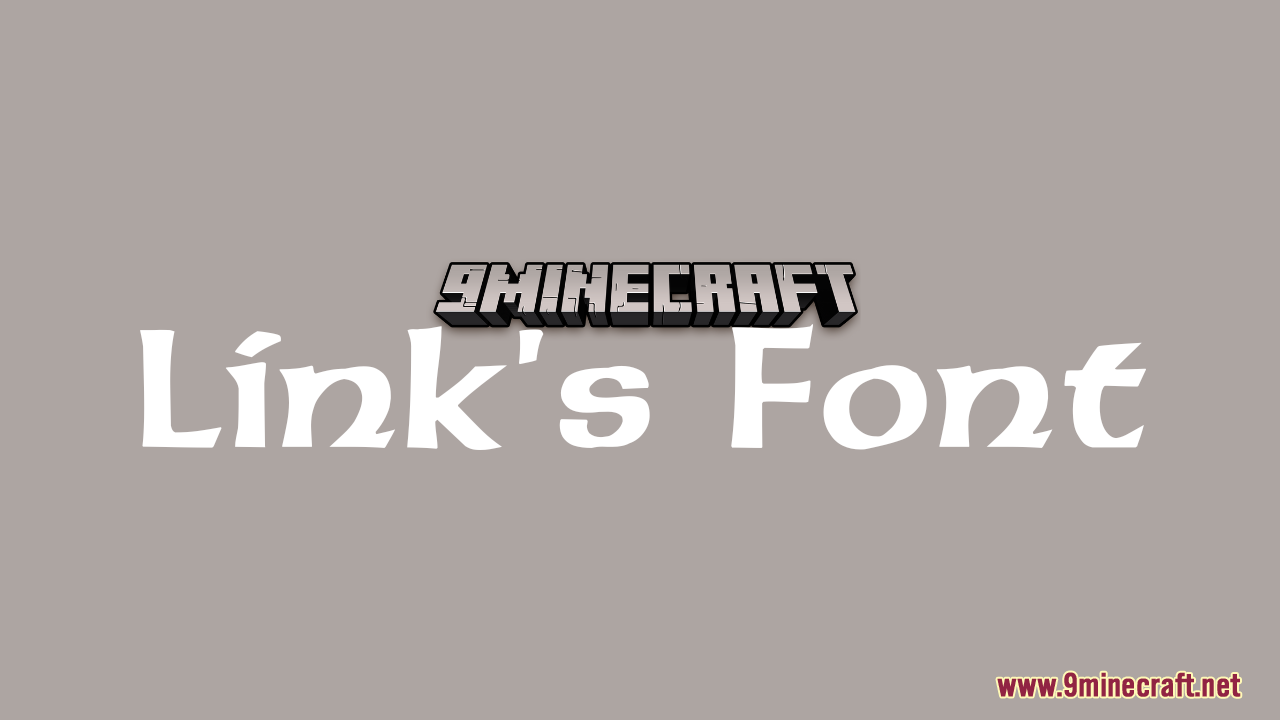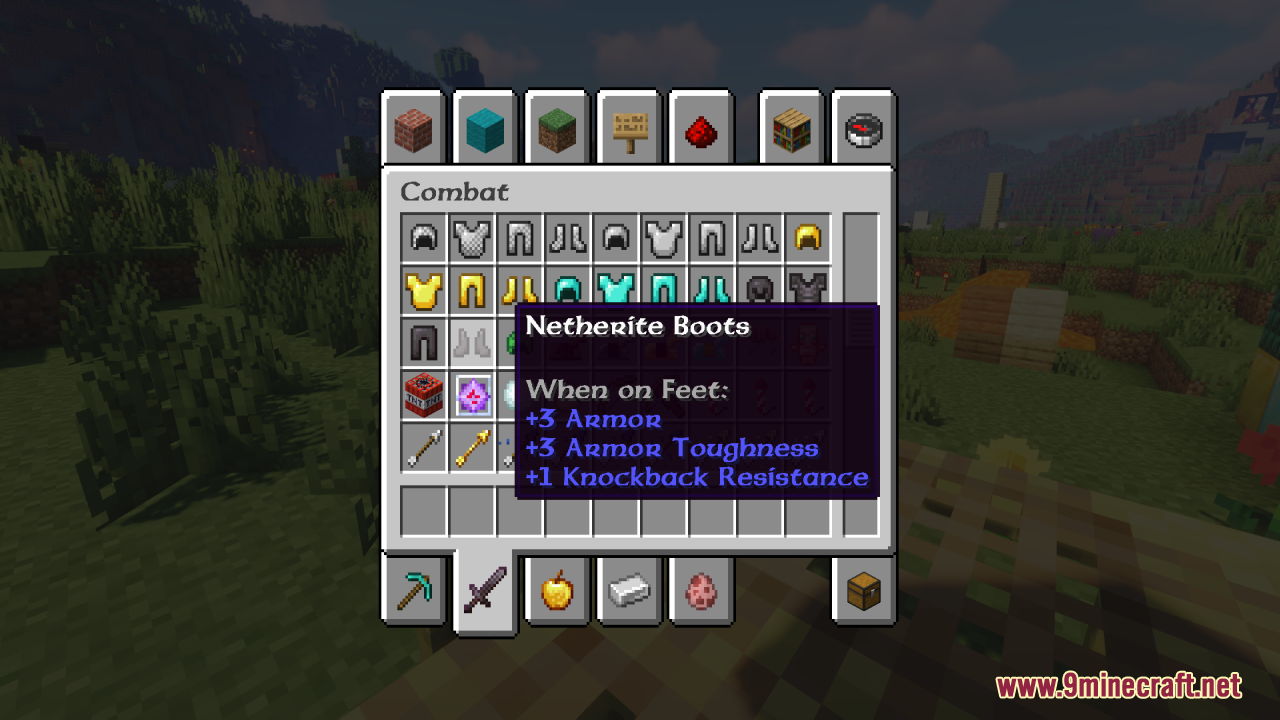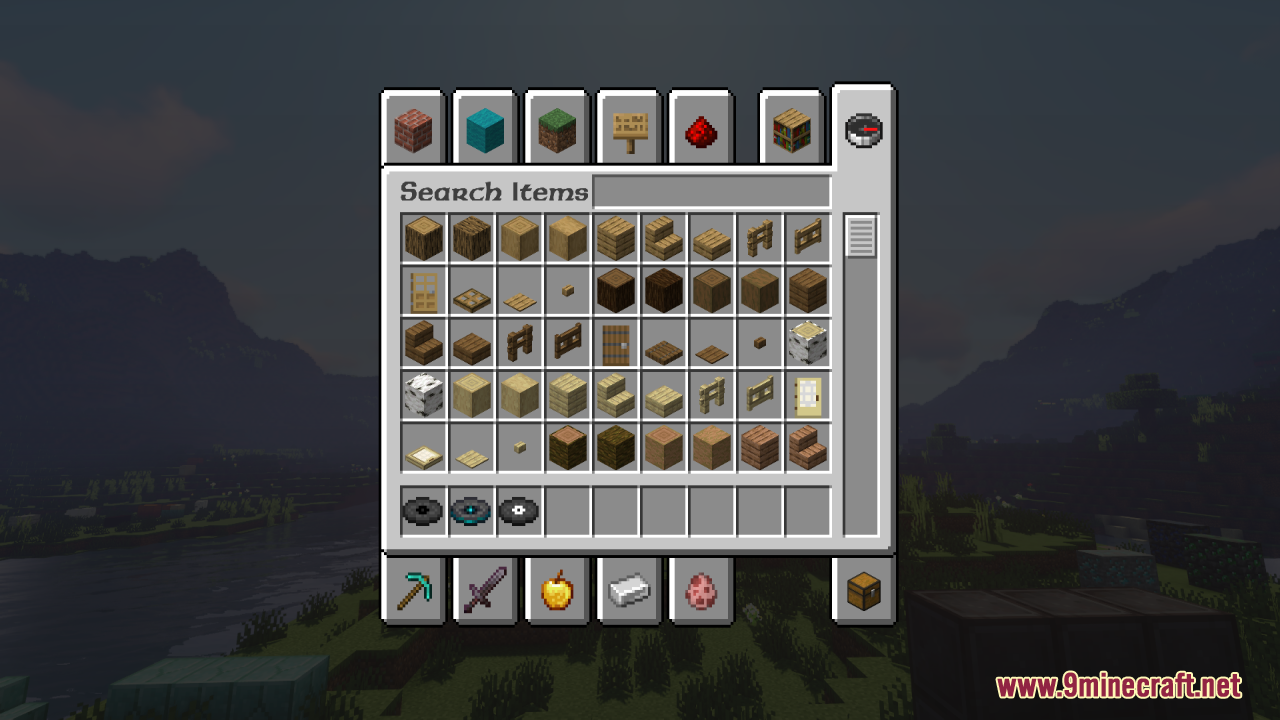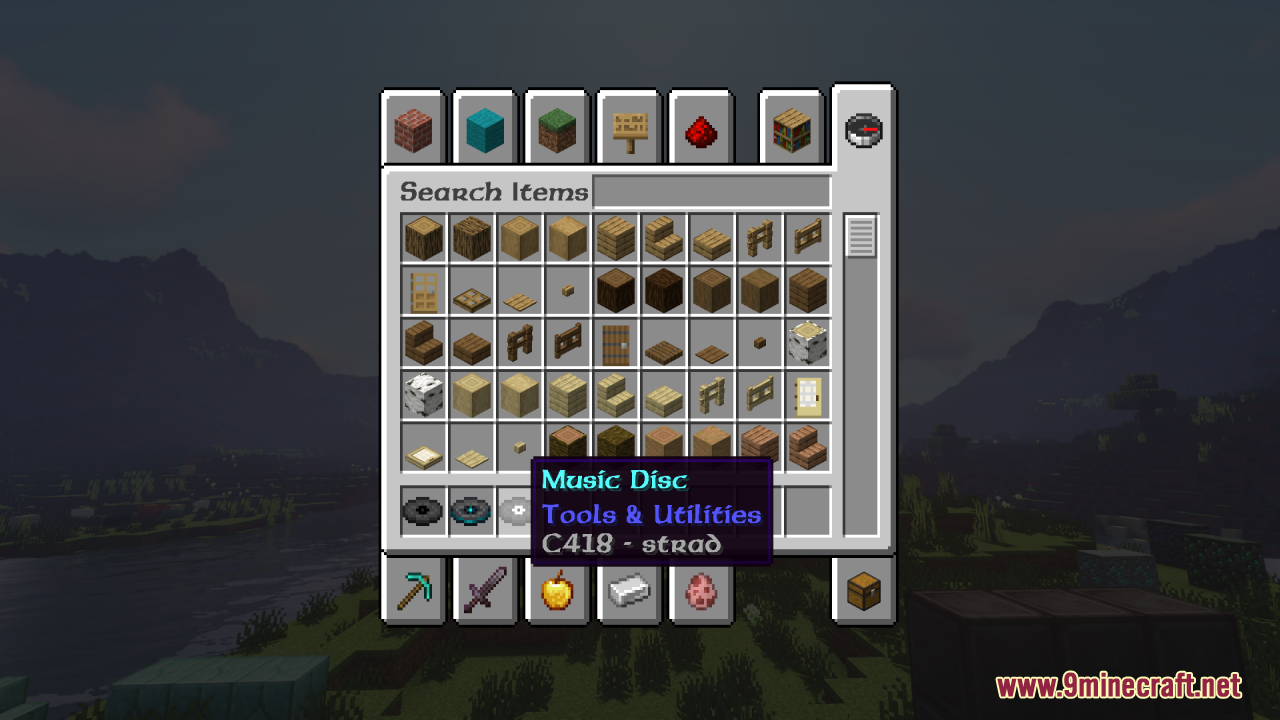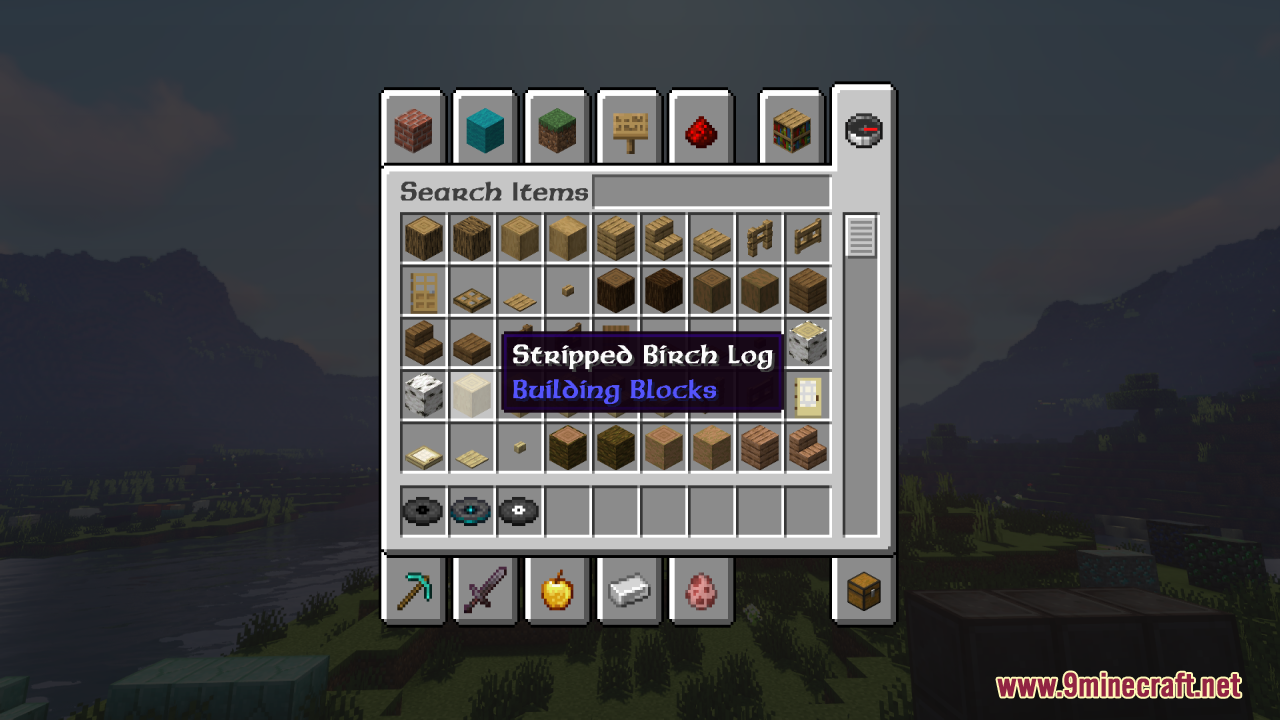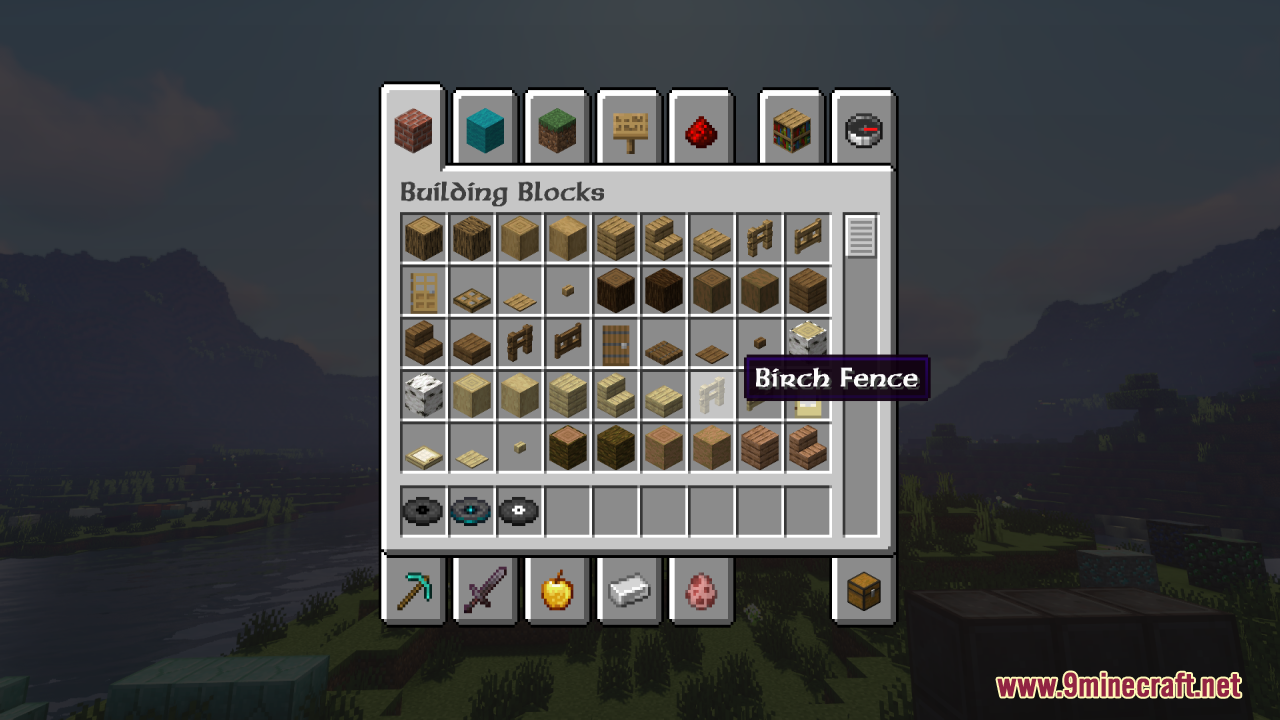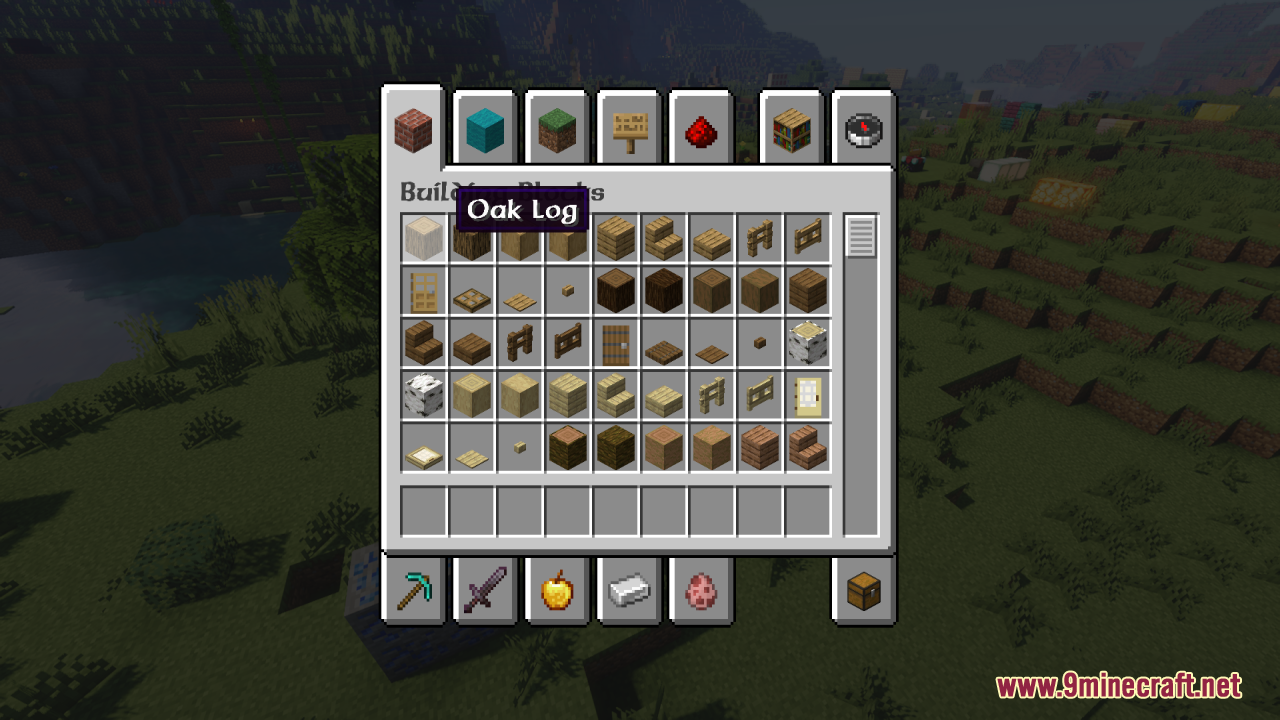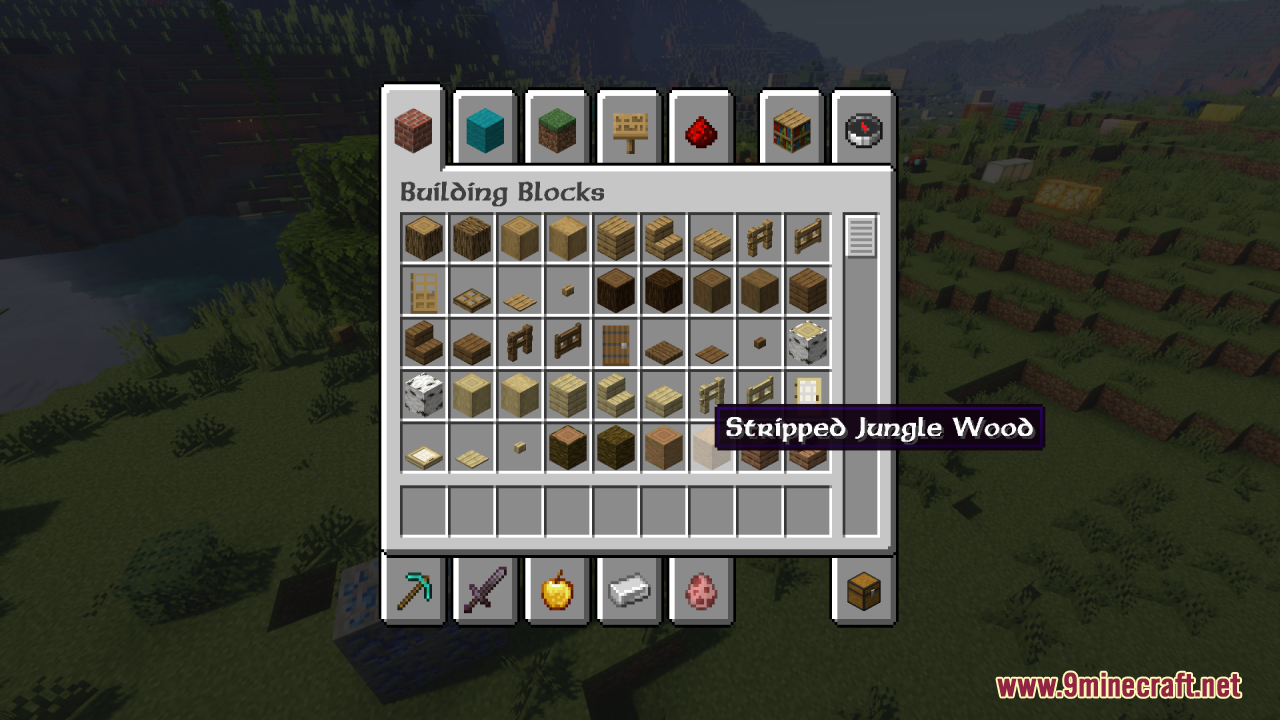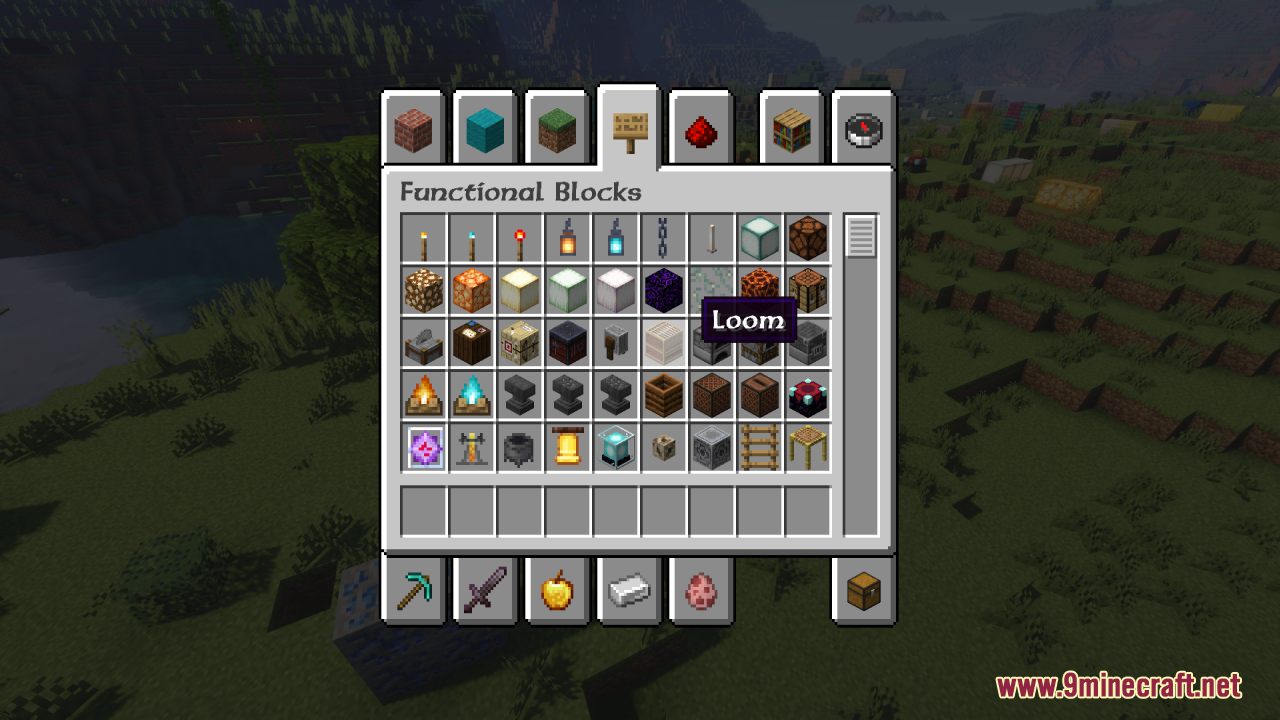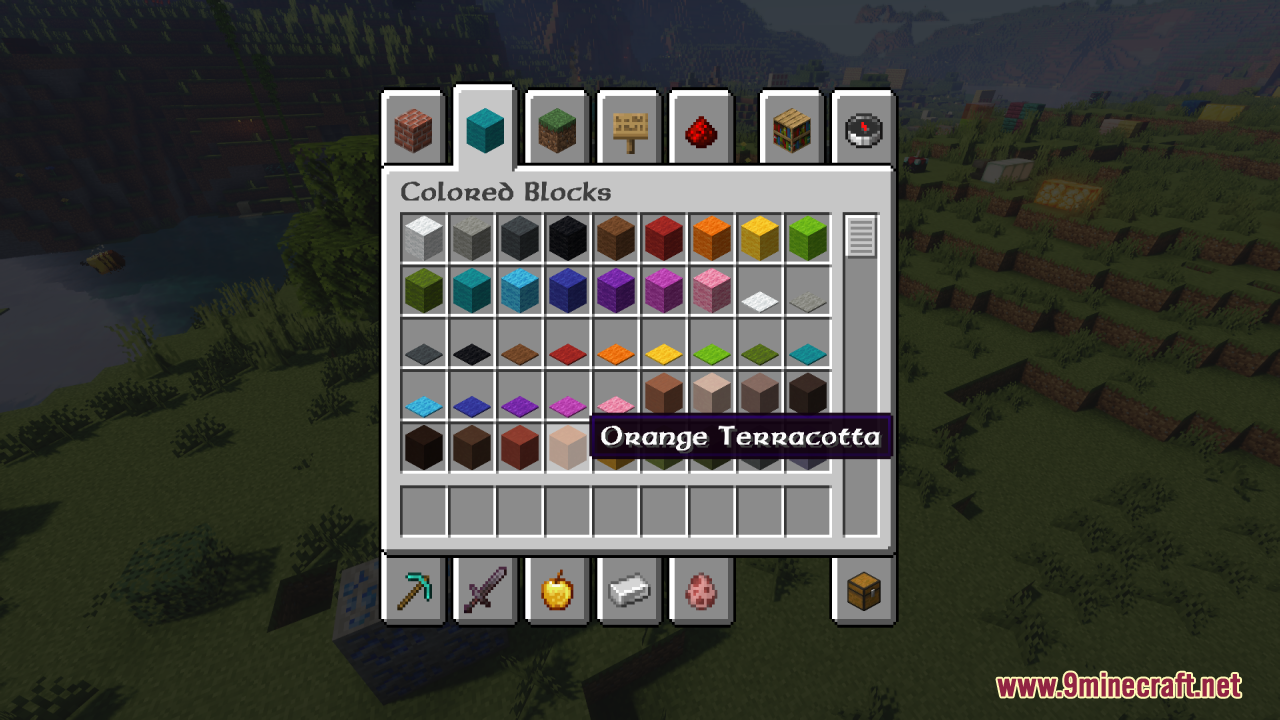
Link’s Font Resource Pack simply enhances your vanilla Minecraft experience by replacing the standard text with a font inspired by The Legend of Zelda: The Wind Waker. The font is styled after the iconic text used in The Wind Waker, bringing a charming, whimsical feel to your Minecraft world. It’s both playful and easy to read, adding a unique flair to the game’s menus, chat, and tooltips. While it changes the font, the resource pack retains the vanilla experience, providing a subtle upgrade that blends well with the existing Minecraft style. In general, this slight and clean resource pack adds a touch of nostalgia and fantasy to your gameplay, especially for fans of the Zelda series.